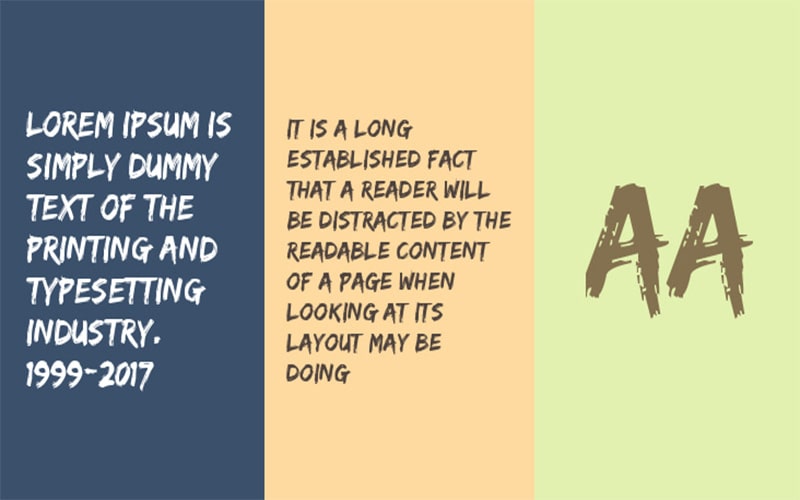
Edo Sz font is a new and stylish Brush, Script typeface that gives a unique and elegant look to your project. This font was created by using Font Creator.
A famous designer Vic Fieger holds all right reserved for this typeface. The subfamily of this Edo hand lettering font is regular. You can find this typeface within google fonts.
For the first time, this high-contrast font was published on May 12, 2006. After a few years, it was updated with modifications on September 23, 2009.
This beautiful dry brush font contains only 1 style such as the “Edo Sz Regular” font style. This font contains 185 defined characters that make your project graceful and presentable.
Edo Sz Font
This beautiful font has three weights that created outstanding more than 100 styles. It also supports more than 150 languages that make it introduced around the world.
Edo Sz is best for different purposes such as creating logos, poster designs, eBook covers, gamepads, posters, and absolutely many more.
This amazing free version font contains 240 clean characters including uppercase, symbols, lowercase letters, and punctuation marks. Let’s take a look at its beautiful texture.